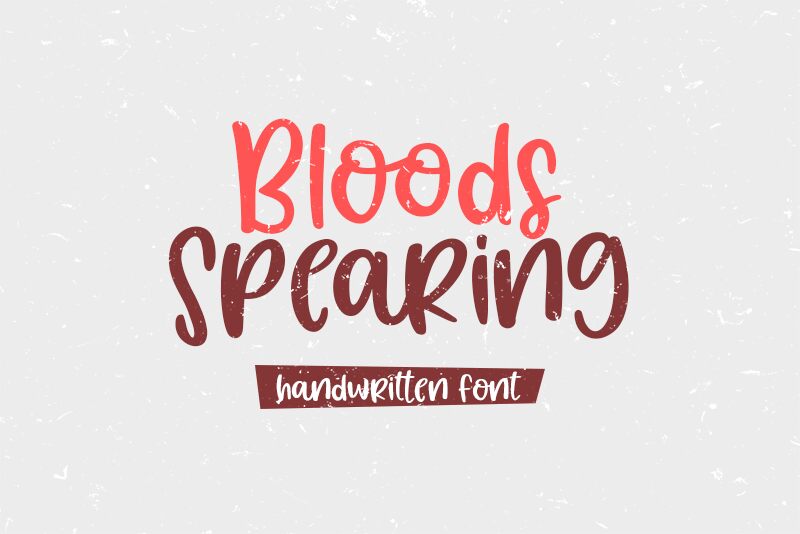
Bloods Spearing is an adorable handwritten font created by Beautypes. Perfect for scrapbooking, greeting cards, and other creative projects, this cute font adds a unique touch to any design!
Bloods Spearing